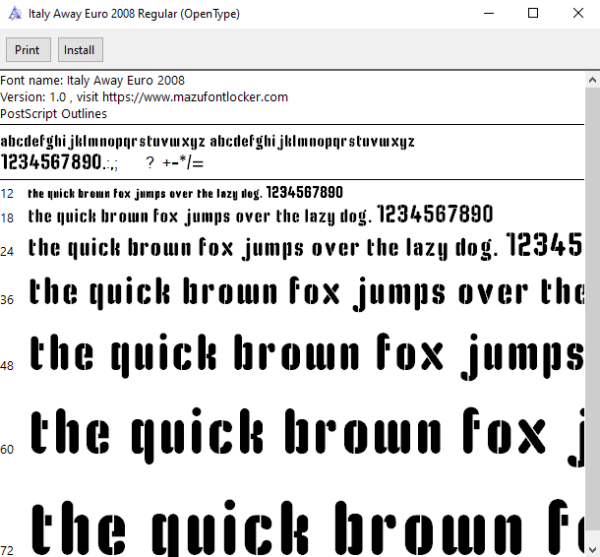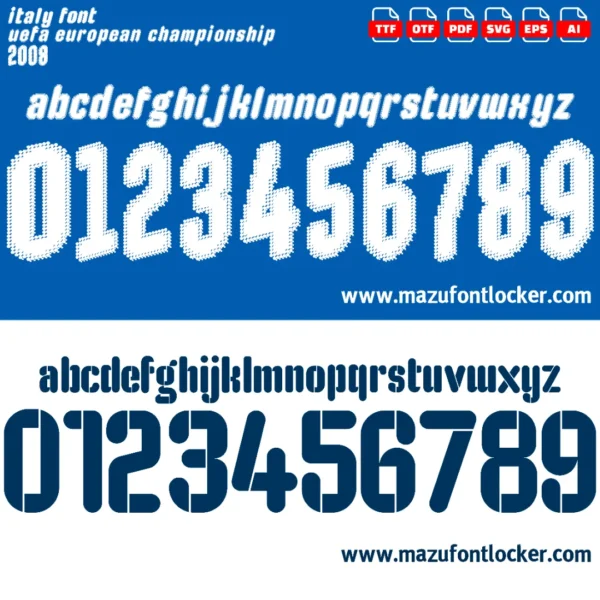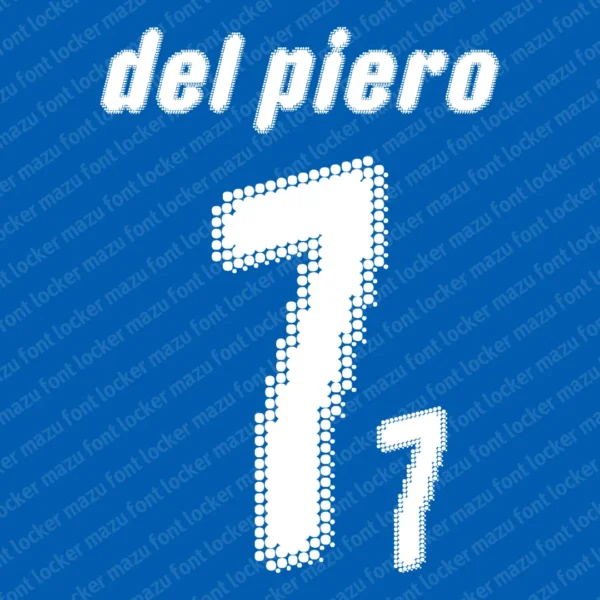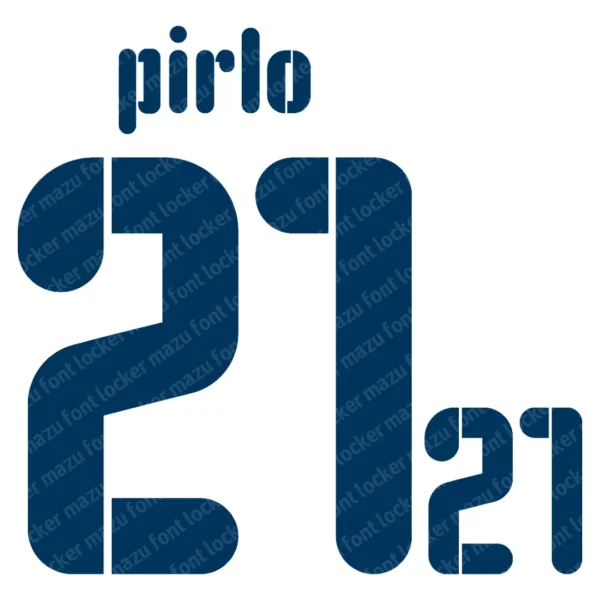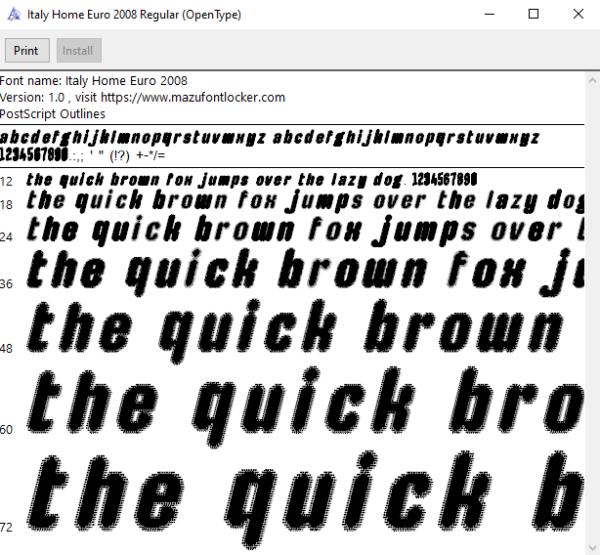
Italy Euro 2008 Font Vector – Legendary Azzurri Italian Glory
Download the Italy Euro 2008 Font Vector (AI, EPS, SVG, PDF, OTF, TTF) and relive the electrifying Azzurri spectacle that dazzled football fans across Italy and the entire world, featuring the iconic match lettering worn during Italy’s unforgettable Euro 2008 campaign as they brought their legendary defensive mastery, tactical brilliance, and fighting spirit to the grand stage.
This premium font captures the bold, elegant, and championship-driven typography that perfectly embodies the spirit of the Azzurri — delivering pure Italian passion, world-class ambition, unbreakable resilience, tactical genius, and the glamorous football culture that cemented Italy as one of Europe’s most feared and celebrated football giants.
Italy Euro 2008 Font Vector – Stunning Azzurri Champions Typeface
The Italy Euro 2008 Font Vector is a premium typeface that accurately recreates the official match lettering worn by the Italian National Team during the UEFA Euro 2008 tournament. This high-quality vector font kit captures the bold, elegant, and classic typography that defined one of the most memorable campaigns in Azzurri history.
Designed for professional designers, football enthusiasts, and Italy supporters, the Italy Euro 2008 Font Vector delivers authentic results for jersey mockups, fan merchandise, retro football projects, social media graphics, and historical matchday designs. It perfectly complements the iconic blue kits worn by Gli Azzurri throughout the Euro 2008 campaign.
Why Choose Italy Euro 2008 Font Vector
This font stands out thanks to its faithful recreation of the official shirt lettering used by the Italian National Team during Euro 2008. Every character has been carefully crafted to match the authentic player names and numbers seen on the pitch. Whether you are designing realistic kit concepts or creating football-themed artwork, the Italy Euro 2008 Font Vector delivers professional-quality authenticity.
The letterforms feature a clean, athletic, and timeless design that reflects Italy’s legendary status in international football. The balanced proportions and sharp detailing provide excellent readability while maintaining the Azzurri’s sophisticated and passionate identity.
The numerals are bold, modern, and highly recognizable, closely matching the official squad numbers used throughout the Euro 2008 tournament. The vector format ensures perfect scalability for both digital and print applications.
• Complete uppercase A–Z and numbers 0–9 in authentic Italy Euro 2008 style
• Includes accurate crest glyph positioning for realistic jersey customization
The Italy Euro 2008 Font Vector is an independently designed typeface package created to replicate the official shirt lettering style used by the Italian National Team during the UEFA Euro 2008 tournament. It is ideal for retro football projects, jersey customization, fan artwork, historical recreations, and sports design work.